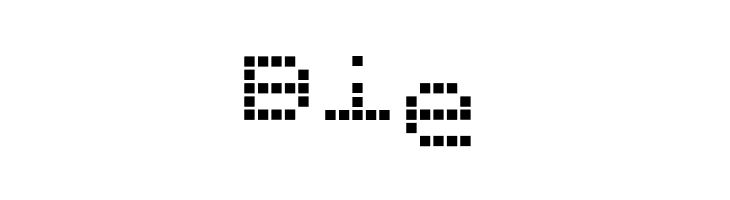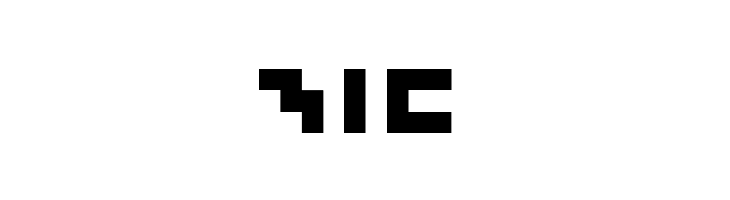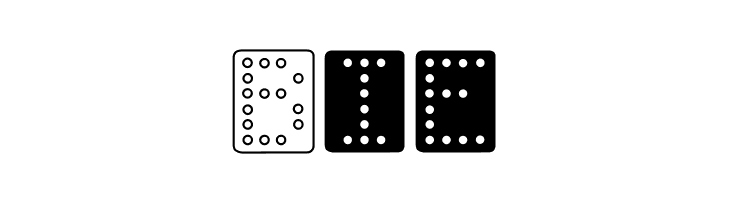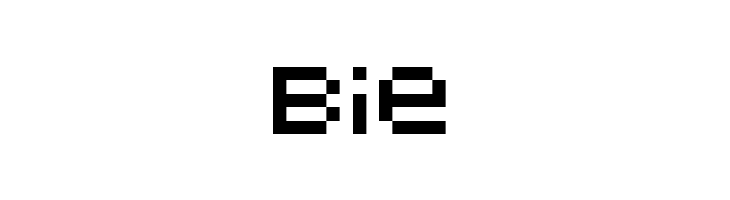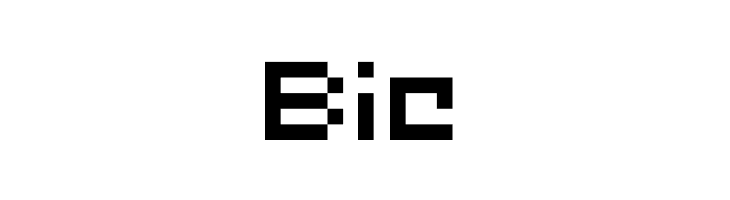
A bold, pixelated font with a geometric, digital aesthetic.
A pixelated, retro-style font with a blocky, digital appearance.
A playful, domino-inspired font with characters formed by dot patterns.
A pixelated, retro-style font with a digital, blocky design.
A bold, pixelated font with a geometric, digital aesthetic.
A pixelated, retro-style font with a blocky, digital appearance.
A pixelated, blocky font inspired by retro digital displays.
A pixelated font with a retro digital style, ideal for tech-themed designs.